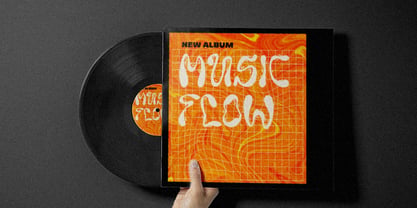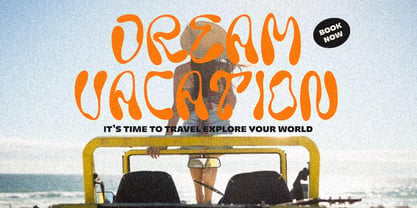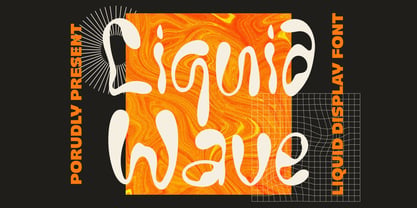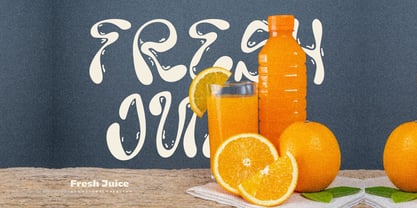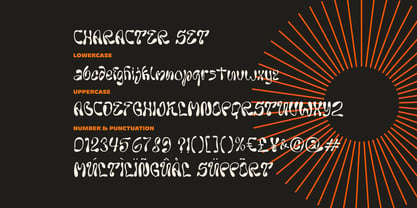
Liquid Wave
by Shanaf
The Liquid Wave Font Family was designed by Yesie Erma Yunita and published by Shanaf. Liquid Wave contains 1 styles. More about this family
Liquid Wave - Liquid Display Font is a striking and innovative digital font designed to capture attention through its fluid, dynamic form. The characters of this typeface elegantly emulate the free-flowing nature of liquid, creating a sense of movement and continuous rhythm. Its bold, curvy strokes and irregular contours reflect the aesthetic of fluid motion, offering a unique blend of retro-inspired style with a modern Y2K vibe. The distinctive, irregular edges and organic shapes of each letter evoke a playful yet sophisticated feel, making it ideal for designs seeking to communicate freshness, creativity, and energy.
This font excels when used for impactful headlines, stylish branding, and eye-catching packaging designs. Its versatility makes it suitable for crafting logos, vibrant posters, dynamic magazine covers, intriguing book covers, and even expressive film titles. Additionally, Liquid Wave is perfect for businesses and creative professionals aiming to inject a touch of bold personality into their projects. Whether you're designing playful invitation cards, lively stickers, memorable business cards, or attention-grabbing social media graphics, Liquid Wave ensures your creations will stand out prominently. Complete with multilingual support, numerals, and punctuation, this font delivers exceptional flexibility to fulfill your creative ambitions.
Designers: Yesie Erma Yunita
Foundry: Shanaf